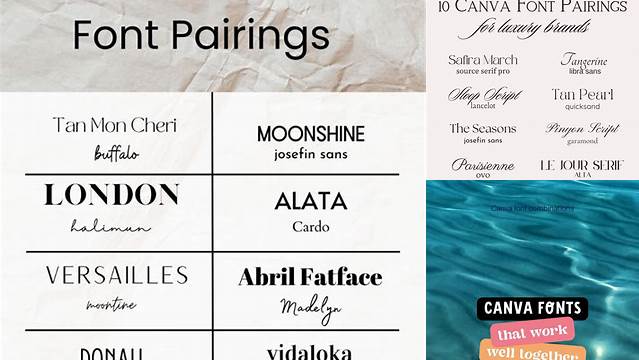
Canva Font Combinations: A Designer's Guide
Hey guys! Let's talk about one of the most crucial elements in design: fonts! And specifically, how you can nail some killer Canva font combinations to make your designs pop. Whether you're a seasoned designer or just starting out, choosing the right fonts can make or break your project. In this article, we'll dive deep into the art of pairing fonts, exploring best practices, and providing you with awesome Canva font combination ideas to get your creative juices flowing. Get ready to transform your designs from meh to magnificent! We'll cover everything from understanding font types to practical tips for creating visually stunning layouts. So, let's get started, shall we?
Understanding Font Types: The Foundation of Great Canva Font Combinations
Before we jump into specific Canva font combinations, it's essential to understand the basic font types. Knowing the characteristics of each type will help you make informed decisions and avoid design disasters. Think of it as learning the ingredients before you start baking! The major font categories you should know are:
Serif Fonts: These fonts have small decorative strokes, called serifs, at the end of each letter. They often convey a sense of tradition, elegance, and authority. Think of them as the classic, formal wear of the font world. Examples include Times New Roman, Georgia, and Playfair Display. Serif fonts are excellent for body text because the serifs help guide the eye across the page, improving readability, especially in print. However, using them for headlines can sometimes feel a bit stuffy, depending on the design's overall style. Consider using serif fonts when you want to create a feeling of sophistication or heritage.
Sans-Serif Fonts: As the name suggests, these fonts lack the decorative strokes (serifs). They are generally more modern, clean, and versatile. Sans-serif fonts are your go-to choice for a contemporary and minimalist look. Think of them as the cool, casual jeans of the font world. Examples include Arial, Helvetica, Open Sans, and Lato. They're fantastic for headlines, subheadings, and body text, especially on screens, where they offer excellent readability. Using a sans-serif font often gives a design a more approachable and friendly feel. So, if you're aiming for a modern and user-friendly design, this is your go-to.
Script Fonts: Script fonts mimic handwriting and have a more decorative and artistic appearance. They can range from elegant and formal to playful and informal. Think of them as the fancy dress of the font world. Script fonts are best used sparingly, typically for headlines, quotes, or special design elements. They can add a touch of personality and flair, but overusing them can make your design look cluttered or difficult to read. Be careful not to overdo the script fonts, as they can be harder to read. Examples include Pacifico, Dancing Script, and Great Vibes. These fonts should be used judiciously to maintain readability and impact.
Display Fonts: Display fonts are designed to grab attention. They are often bold, unique, and used for headlines and short text sections. Think of them as the attention-grabbing accessories of the font world. These fonts come in various styles, including chunky, decorative, and stylized. Display fonts should be used sparingly, as they can be challenging to read in large blocks of text. They are perfect for making a statement or adding a touch of personality to your design. Examples include Bebas Neue, Montserrat, and Oswald. The key is to use these fonts strategically to enhance, not overwhelm, your design.
Understanding these font types is the first step in mastering Canva font combinations. By recognizing the characteristics of each font family, you can start to see how they work together (or don't!). Remember, the goal is to create a harmonious and visually appealing design that effectively communicates your message. Now that you know the basics, let's move on to some practical tips for pairing fonts like a pro!
Best Practices for Creating Awesome Canva Font Combinations
Alright, now that you know your font types, let's get into some practical tips for creating Canva font combinations that really work! Think of these tips as your secret design sauce. Following these guidelines will help you create visually appealing and effective designs. Here are some of the most important things to keep in mind.
Contrast is Key: The secret to a great combination is contrast! You want your fonts to complement each other, but not to blend in so much that they become indistinguishable. Contrast can be achieved through different font types (e.g., pairing a serif with a sans-serif), weights (bold vs. light), sizes (headline vs. body text), and even colors. When there's enough contrast, your text becomes easier to read and more visually interesting. For example, pairing a bold, heavy sans-serif font for your headline with a lighter, more delicate serif font for your body text creates an excellent contrast that grabs attention. Avoid pairing fonts that are too similar in style or weight, as they can make your design look boring or confusing. Focus on creating clear visual distinctions between different elements to guide the reader's eye.
Consider Readability: Always prioritize readability, especially for body text. If your audience can't read your text easily, your design has failed. Ensure that the font size is appropriate for the text's purpose and that the chosen fonts are clear and easy to distinguish from each other. Avoid using complex or overly decorative fonts for large blocks of text. Choose fonts that are optimized for readability, especially on screens. Test your Canva font combinations by viewing them on different devices to ensure they look good everywhere. Don't be afraid to adjust font sizes, line spacing, and letter spacing to improve readability. Remember, the goal is effective communication.
Limit Your Font Choices: Stick to a maximum of two or three different fonts in your design. Using too many fonts can make your design look cluttered and unprofessional. A well-chosen font combination usually looks more sophisticated than a design that uses a bunch of different fonts. Once you find a combination that works well, use it consistently throughout your project. For example, you might use one font for headlines, another for subheadings, and a third for body text. This creates a visual hierarchy and helps the reader navigate your content easily. Less is often more when it comes to font choices!
- Prioritize Contrast and Readability: Make sure your fonts complement each other and are easy to read, especially for body text.
- Limit Font Choices: Stick to a maximum of two or three fonts in your designs.
- Consider Your Brand: Align your font choices with your brand's personality and values.
- Test and Iterate: Get feedback and test your designs to refine your font combinations.
Armed with this information, you're ready to create amazing designs. Go ahead and put these tips into action to elevate your design game! Good luck and happy designing!